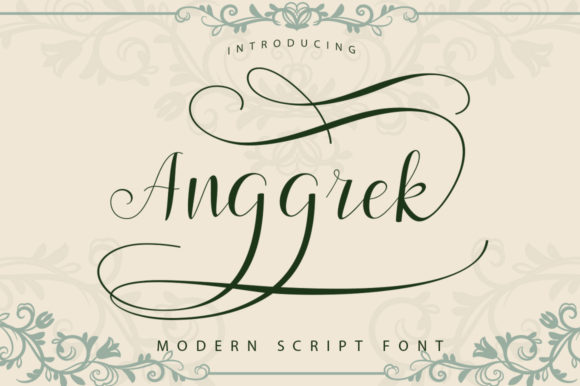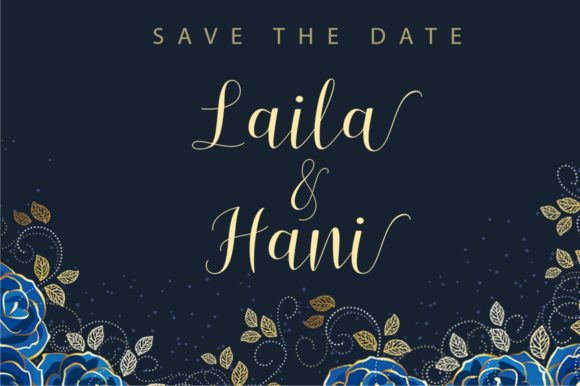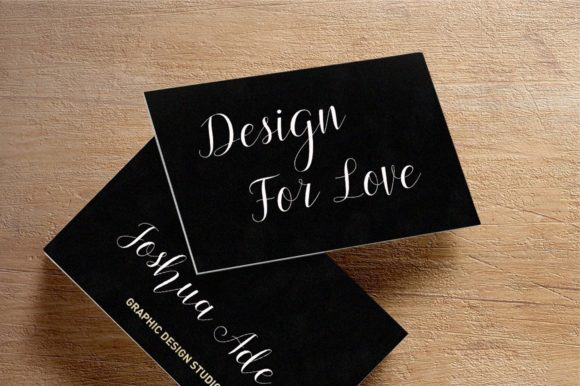
The Anggrek is a modern script font with an irregular baseline. It has a trendy and feminine style which can be used for wedding invitations, thank you cards, quotes, greeting cards, logos, business cards and more.